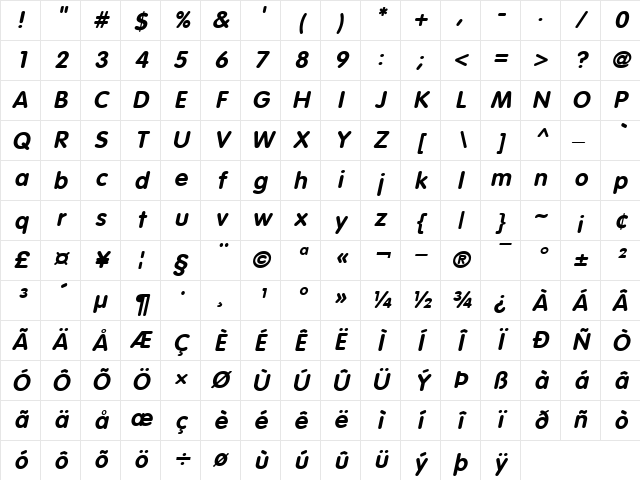
Balloon Bold Oblique Free Font
Balloon Bold Oblique
Style: Bold Oblique
Design Context for Balloon
Balloon is a composed and adaptable typeface that performs quietly and consistently across a wide range of design contexts. The slanted form adds forward momentum and visual energy. Its bold stroke weight gives it real presence on the page.
Pro Tip: Use Balloon for emphasis, pull quotes, and subheadings where its slanted energy can add rhythm to the layout.